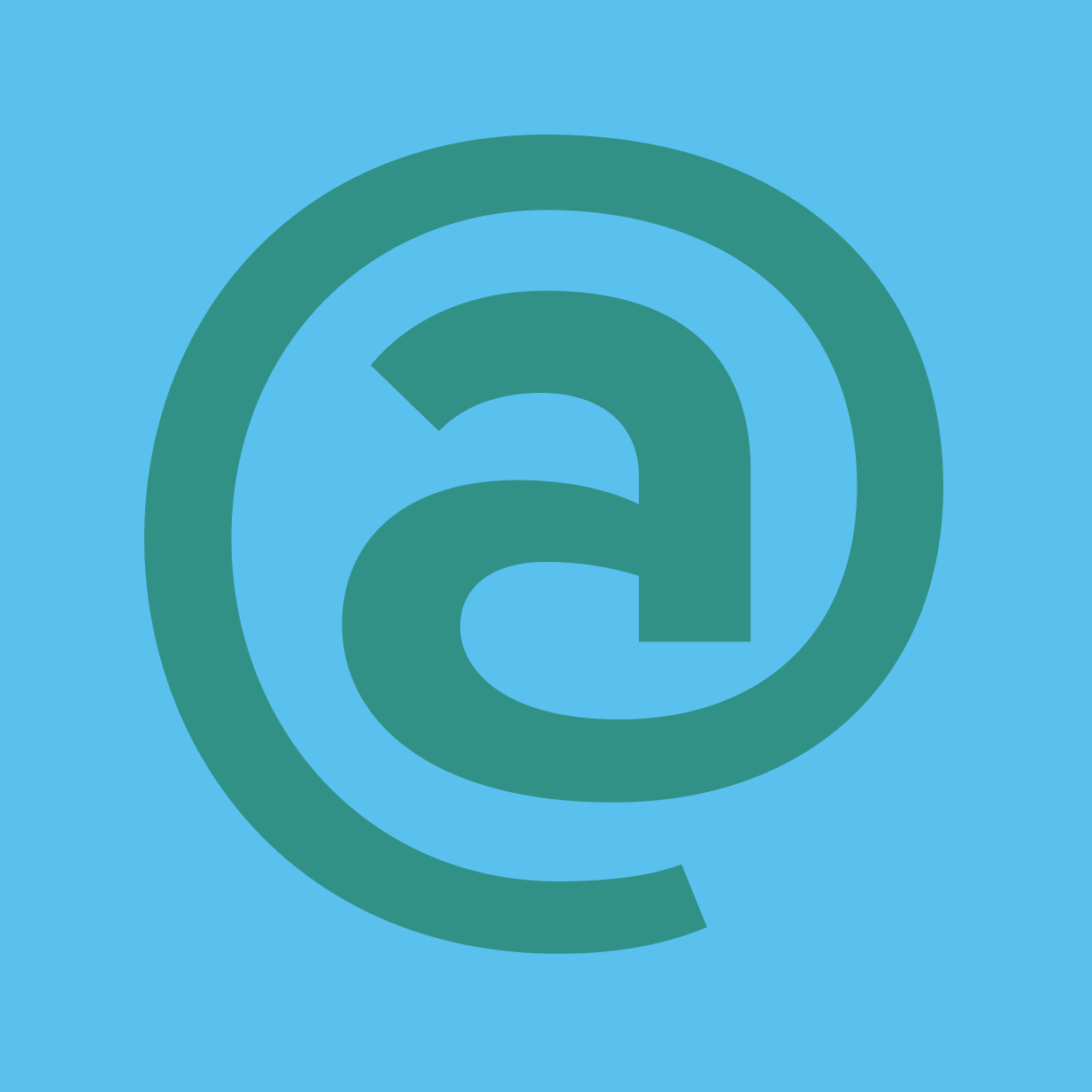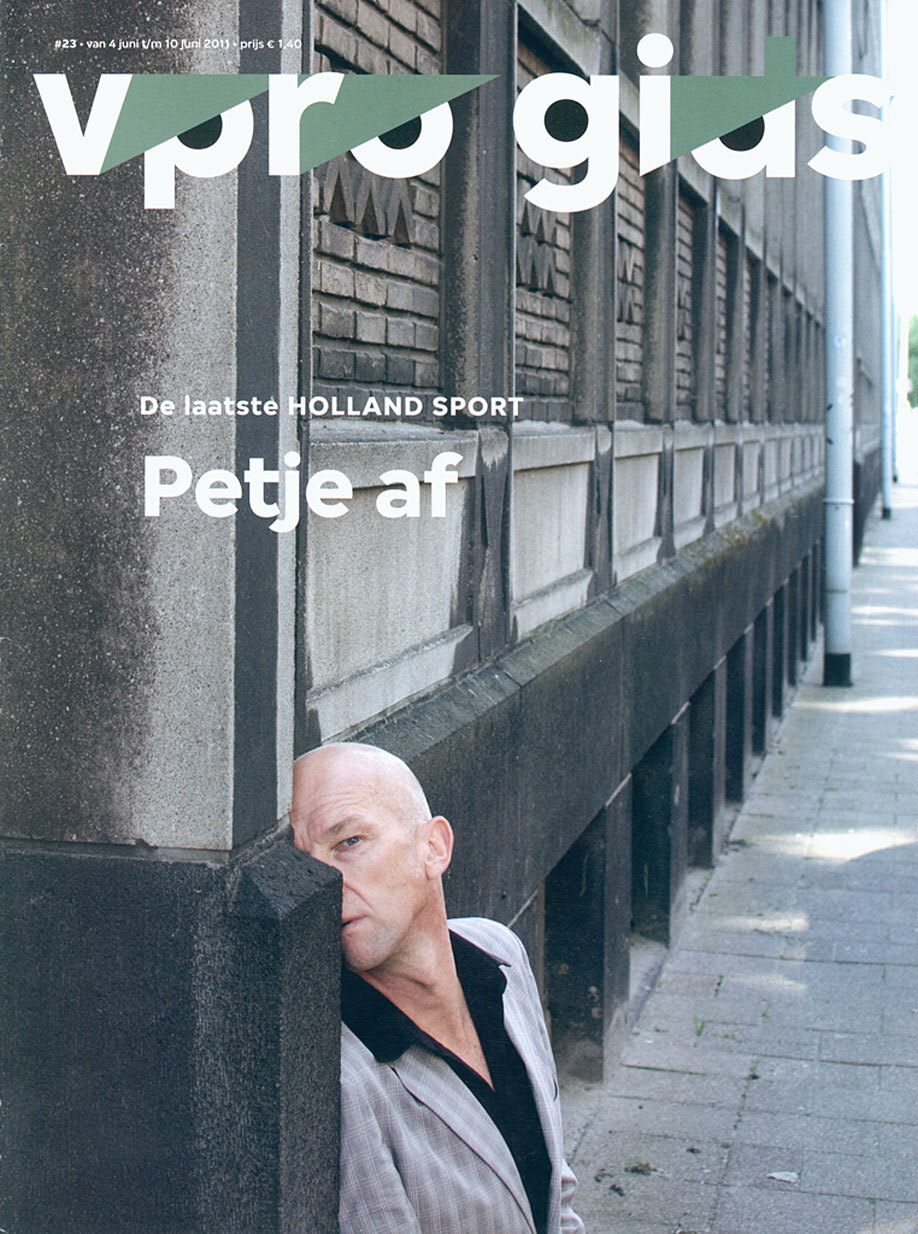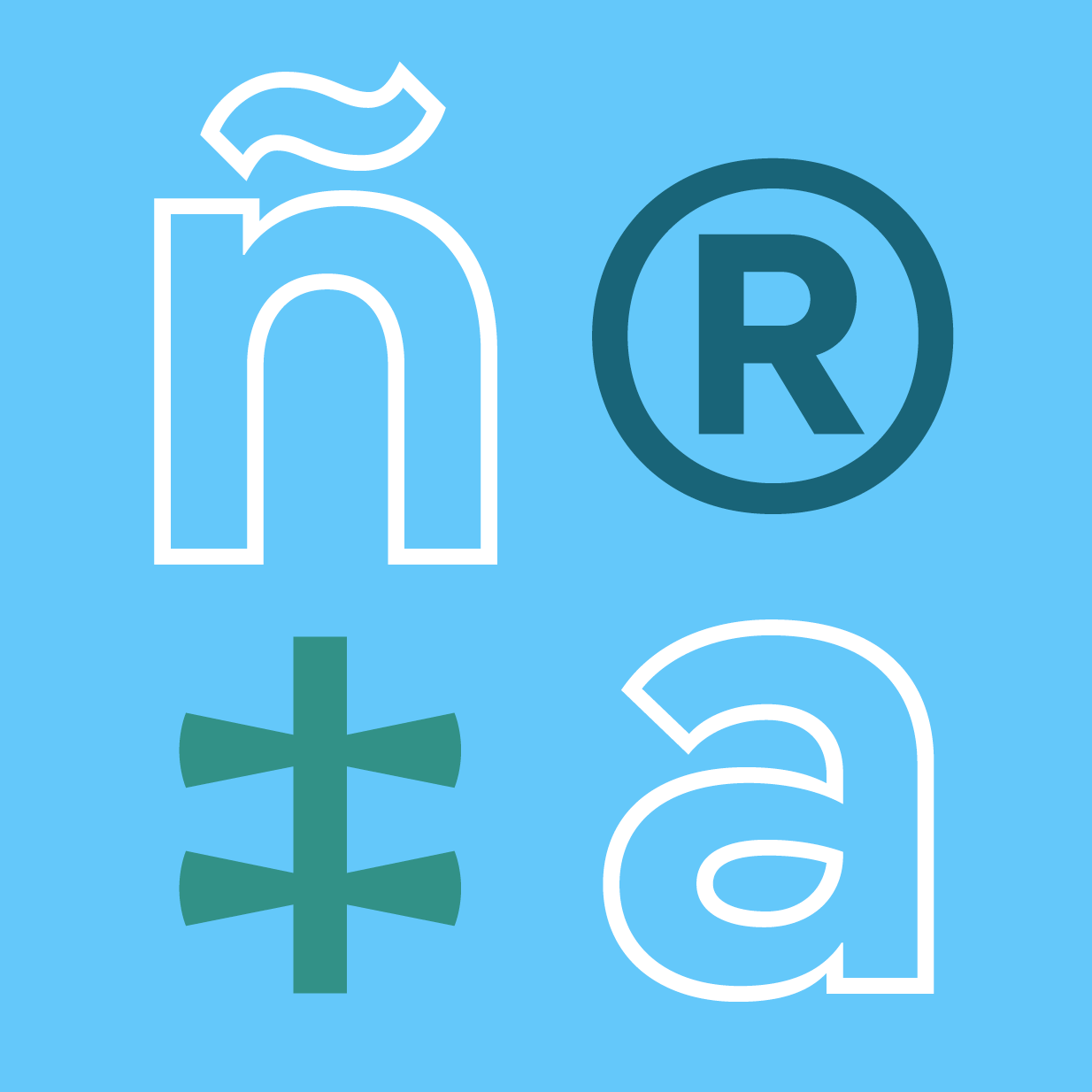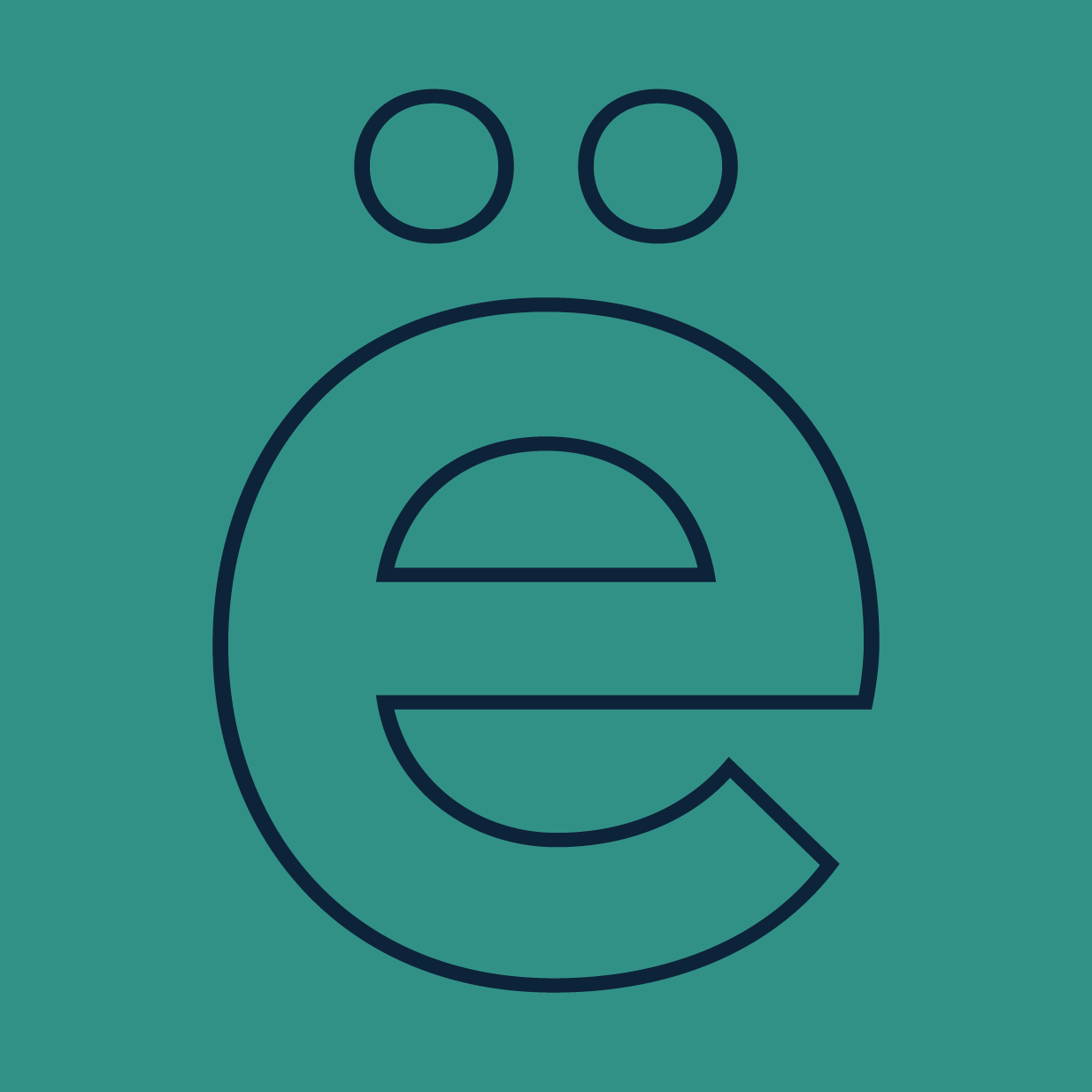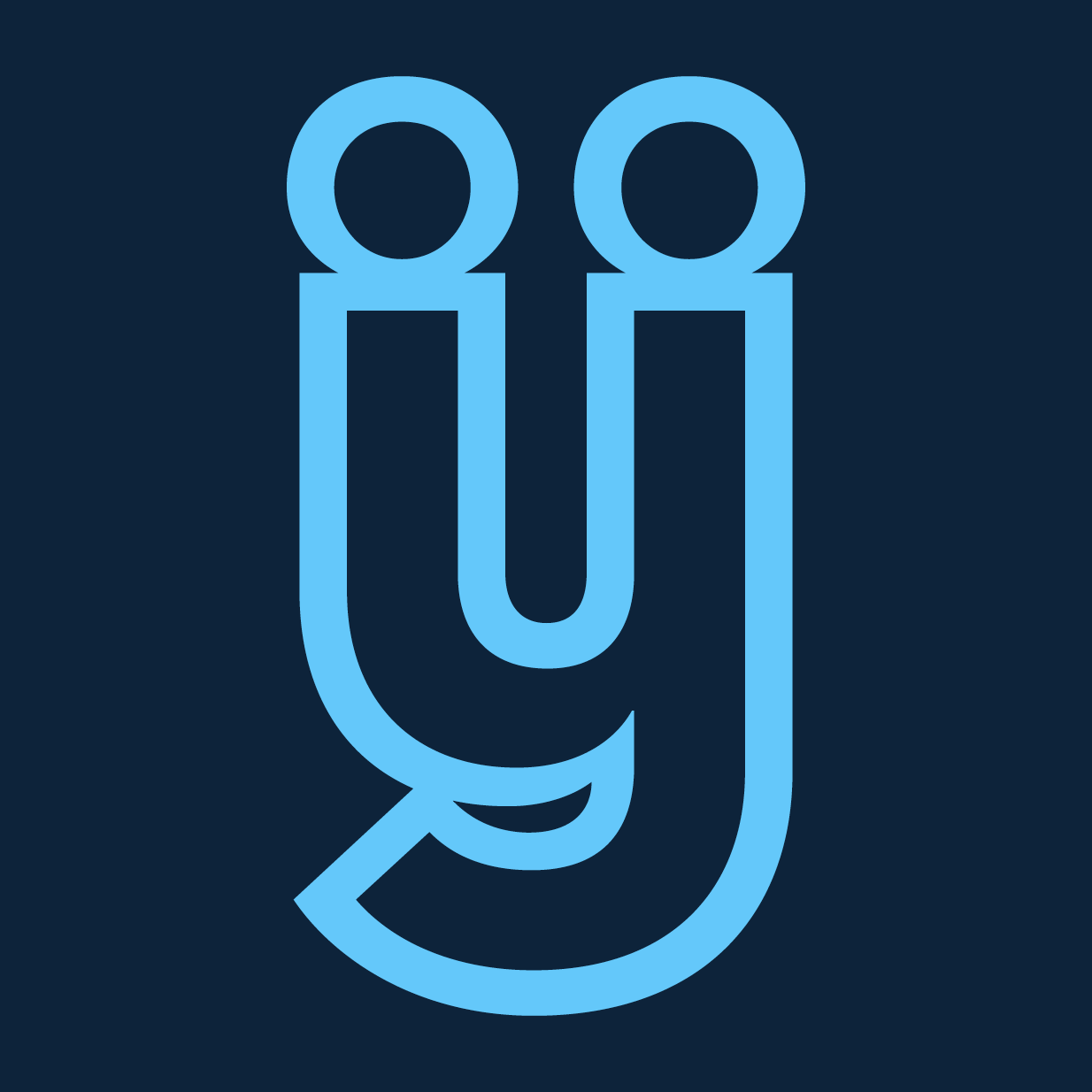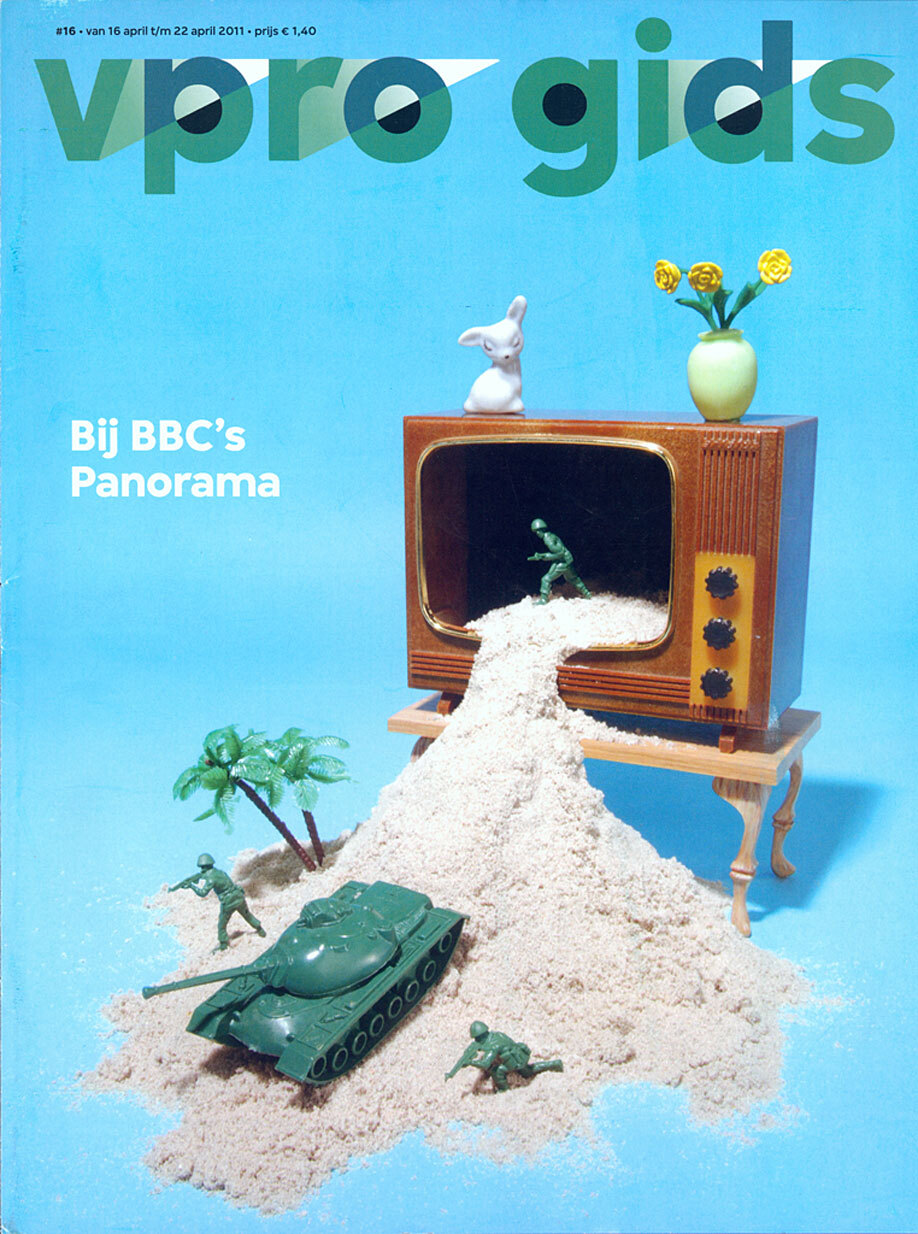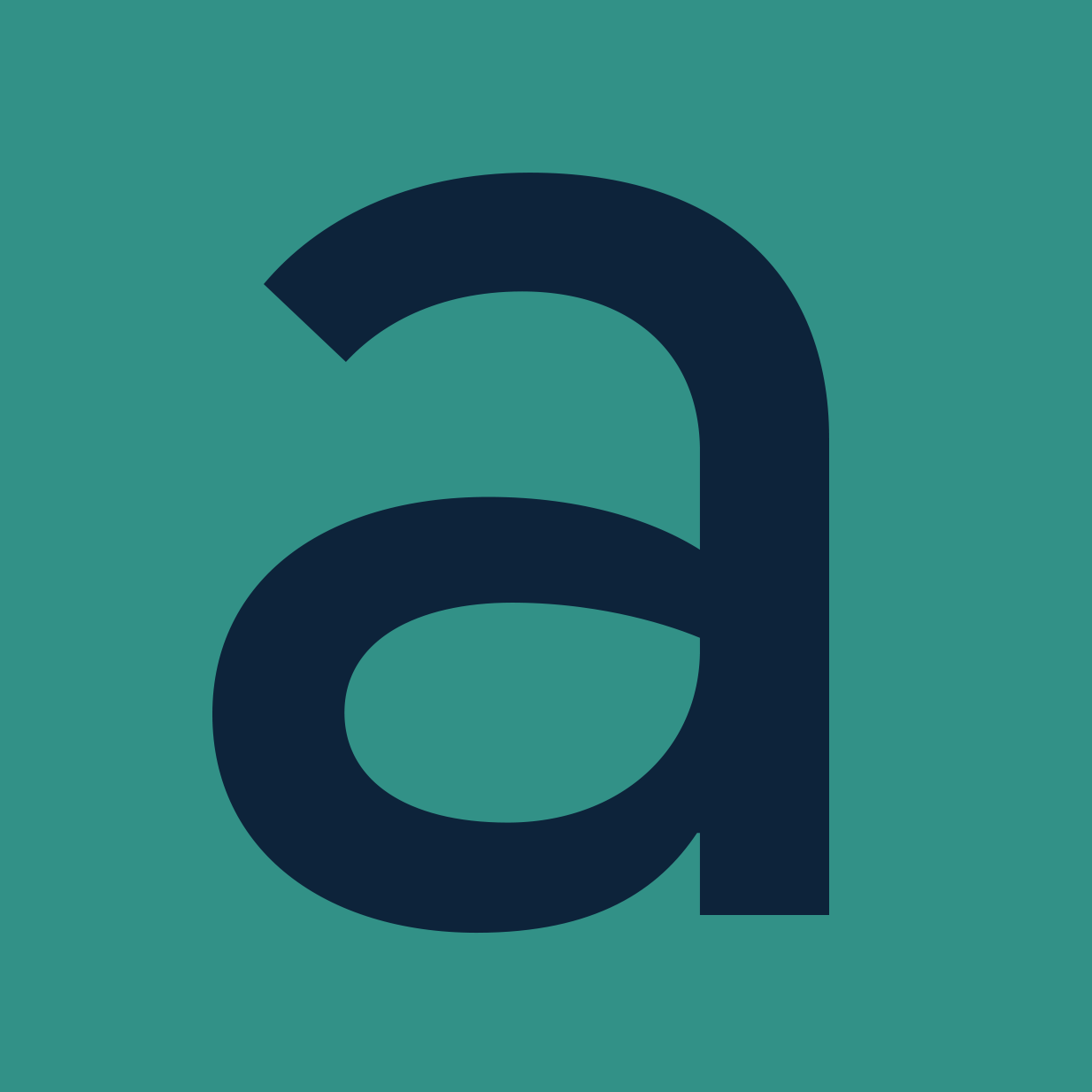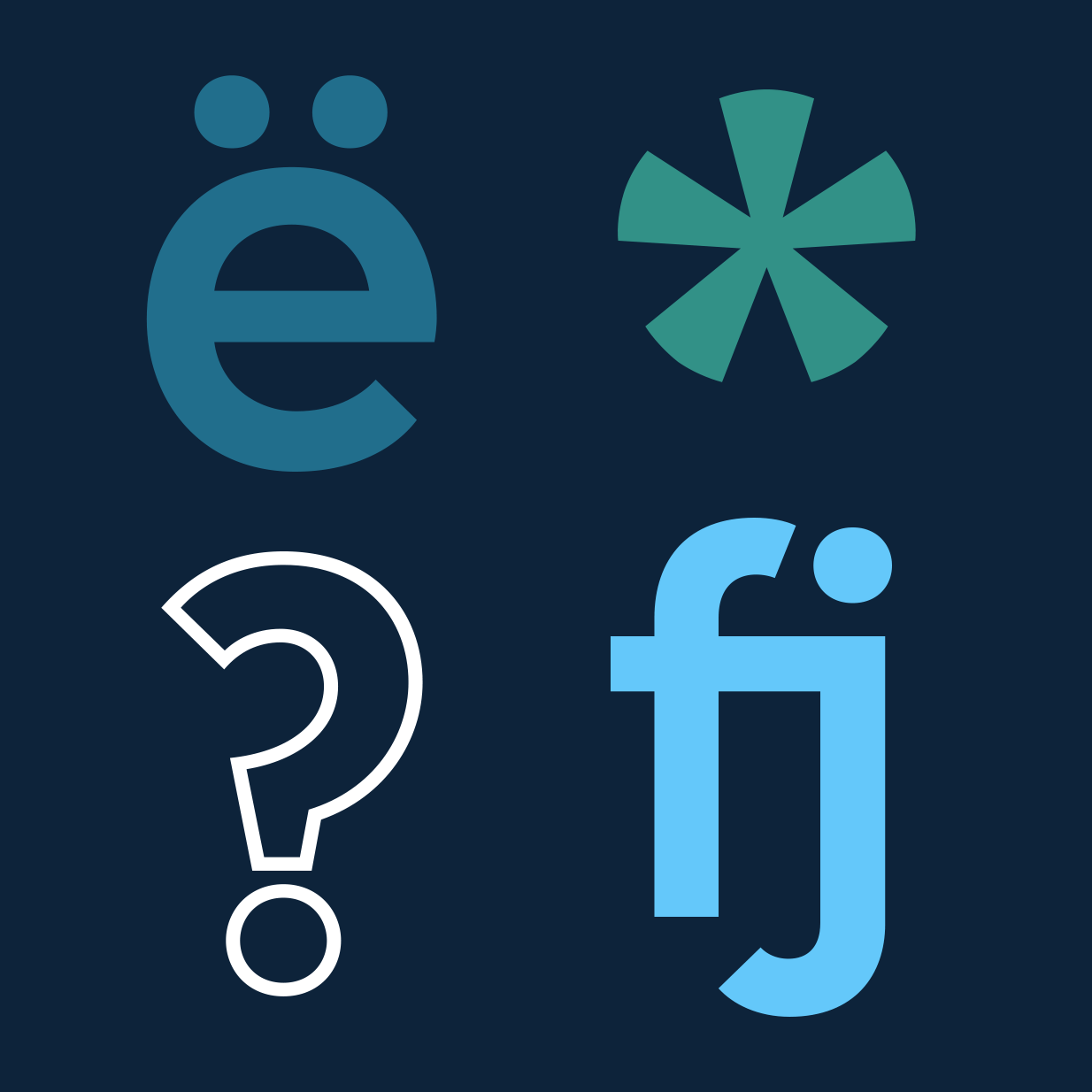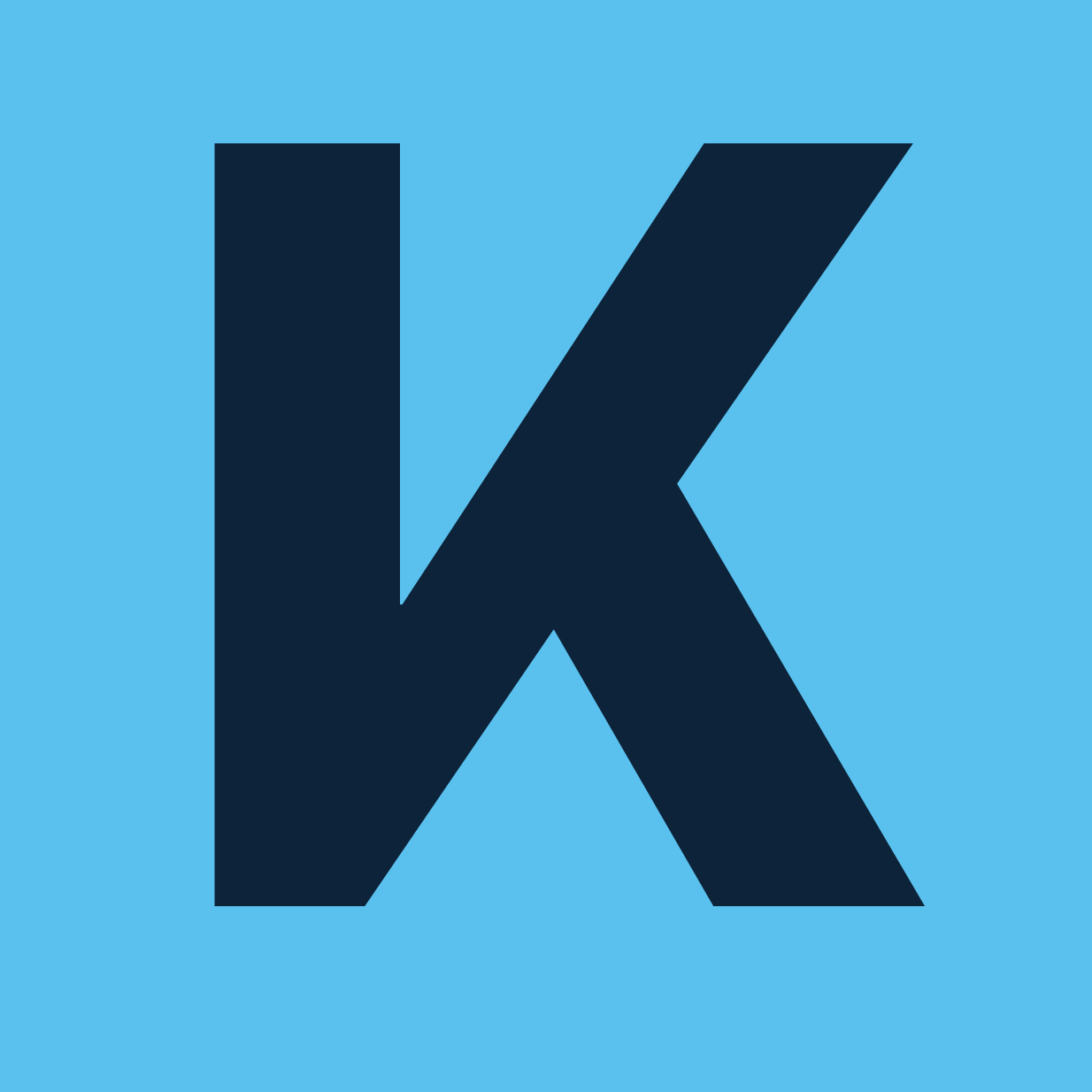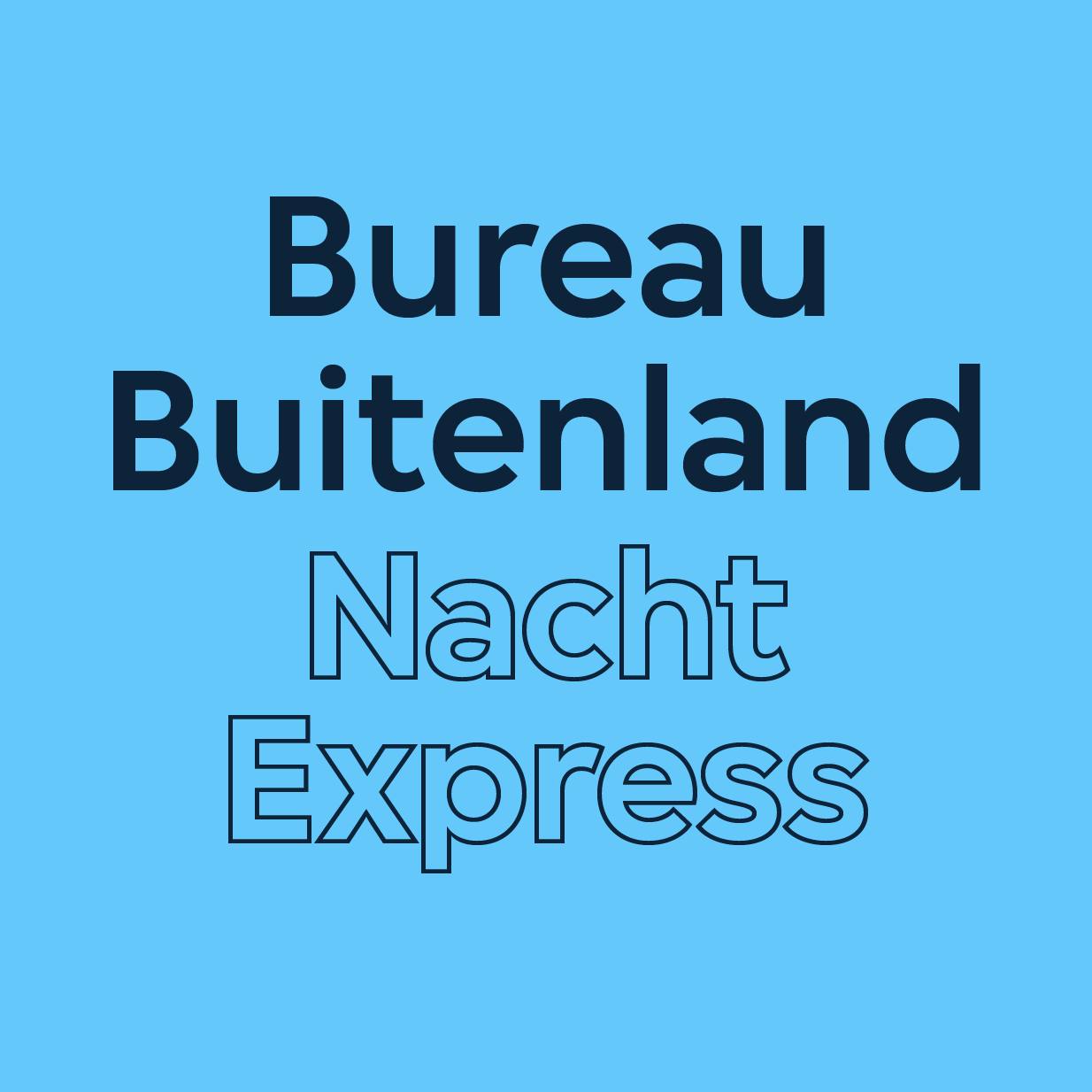
In August 2010, Dutch public broadcasting corporation VPRO launched their new identity, designed by studio Thonik in Amsterdam. Based on the four letters of the VPRO logo, Bold Monday developed a custom type family to complement the new visual identity.
The typeface belongs to the genre of geometric sans-serifs, a group in which Futura (1927) and Avant Garde (1970) can be regarded as the most prominent members. Compared to those two typefaces, the VPRO family is less rigid — the ‘o’ is not a perfect circle for instance — and has a warmer, more humane appearance. The three weights include many stylistic alternates and special ligatures such as the Dutch ‘ij’ and ‘IJ’-digraph.
Matching outline versions were added in 2019 and 2025. For a broad language support, the typeface was expanded to include a Latin Extended character set in 2025.
With a generous x-height and its playful details, the typeface is designed to feel most at home in larger sizes and display applications.